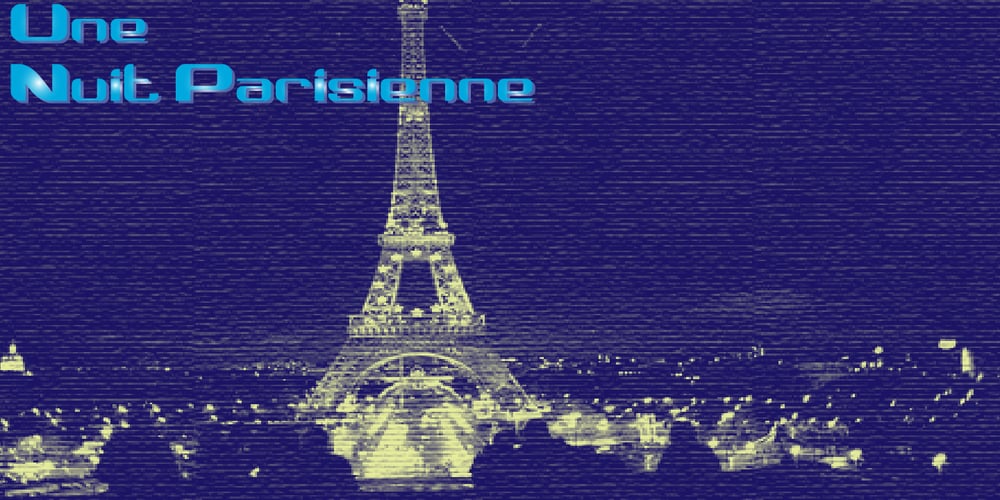
Une Nuit Parisienne Font Family was designed by Rob Barba and published by Megami Studios. Une Nuit Parisienne contains 5 styles and family package options. This font is based on a lot of the downtempo culture in Paris. Smoky bars, jazz clubs, that sort of thing. How a font can be influenced by intangibles is a question that I can’t quite answer, but I can say that when I created it, it strongly reminded me of a couple of times spent in Paris back in the mid-90s.